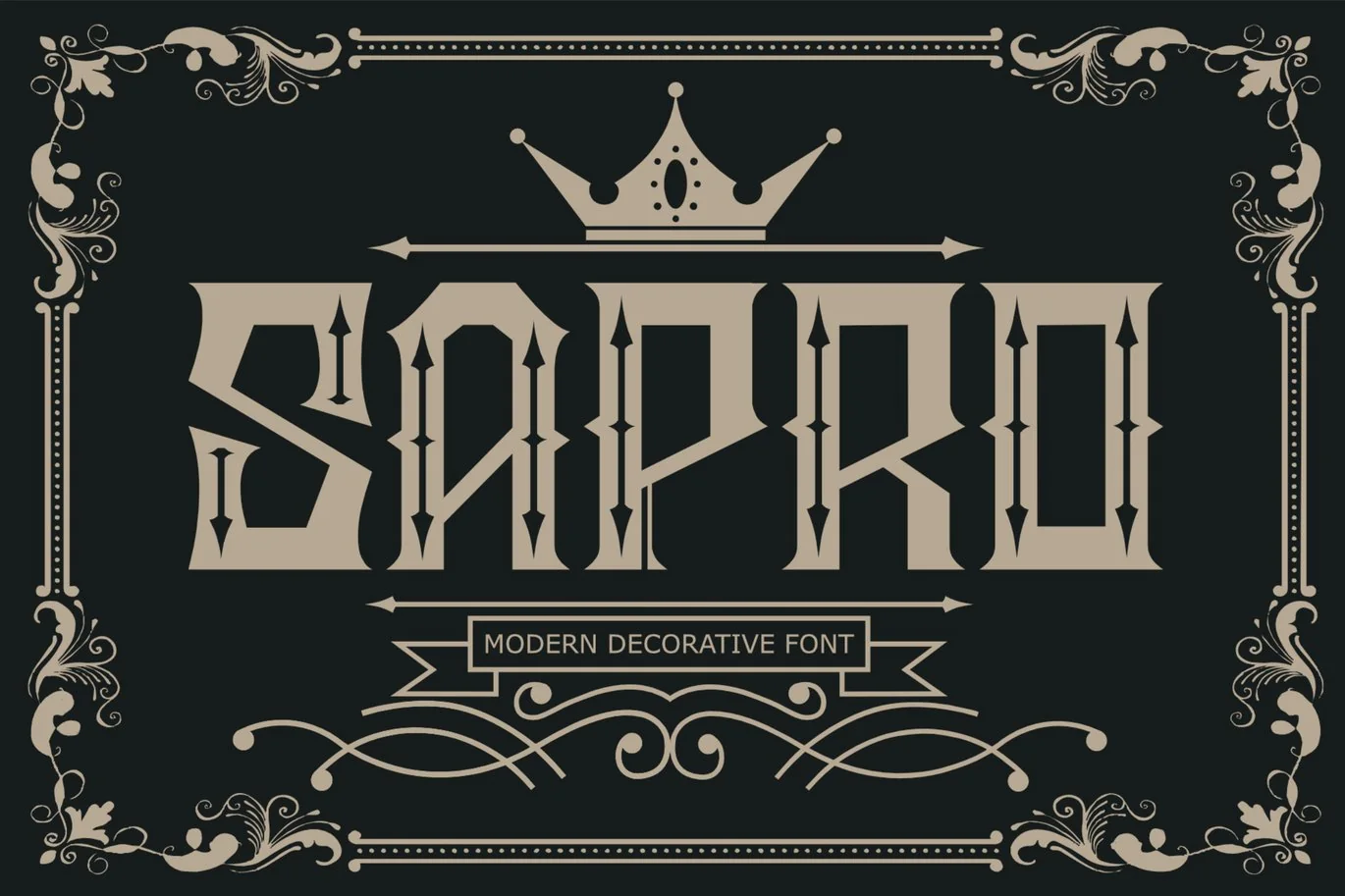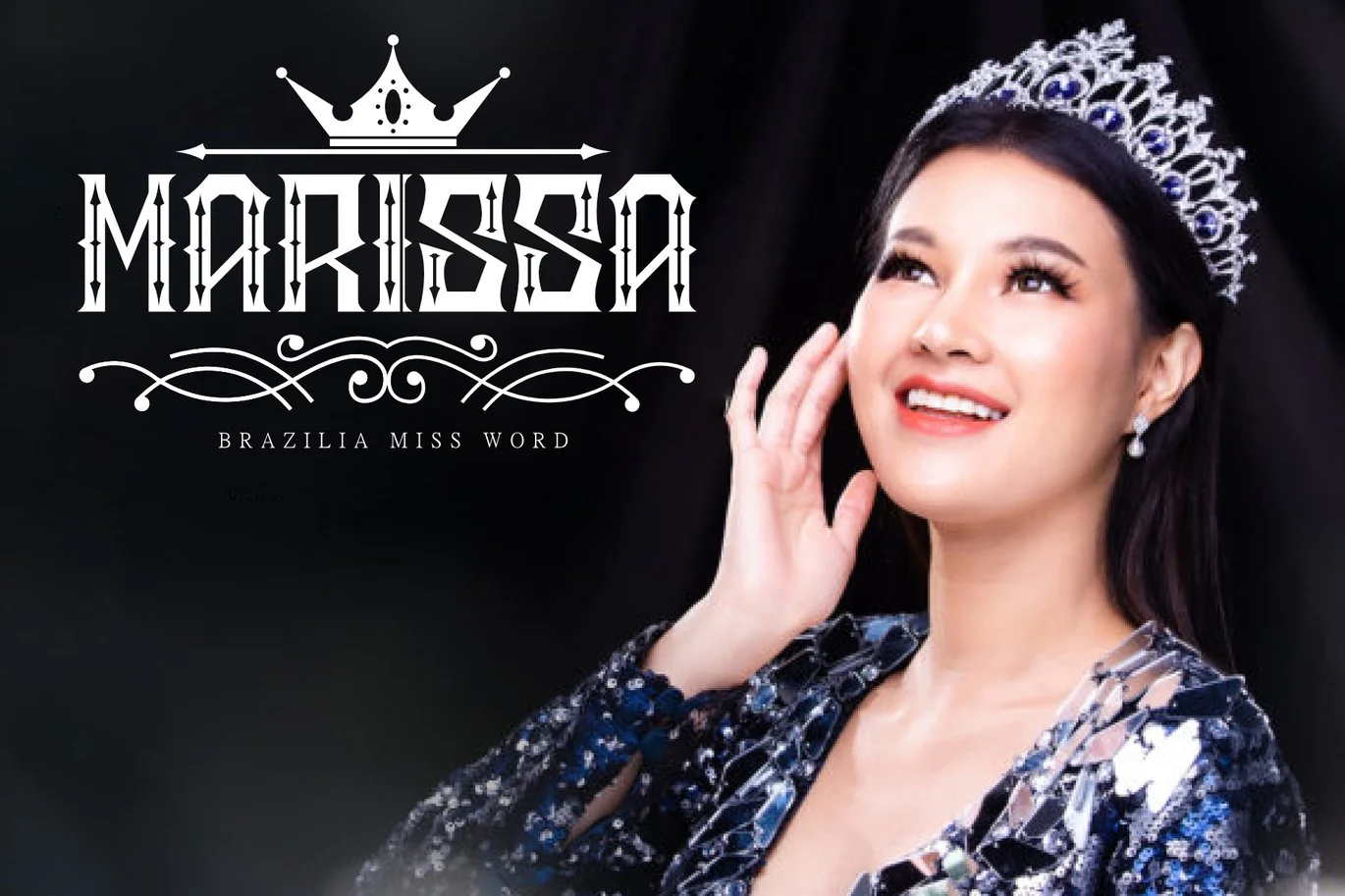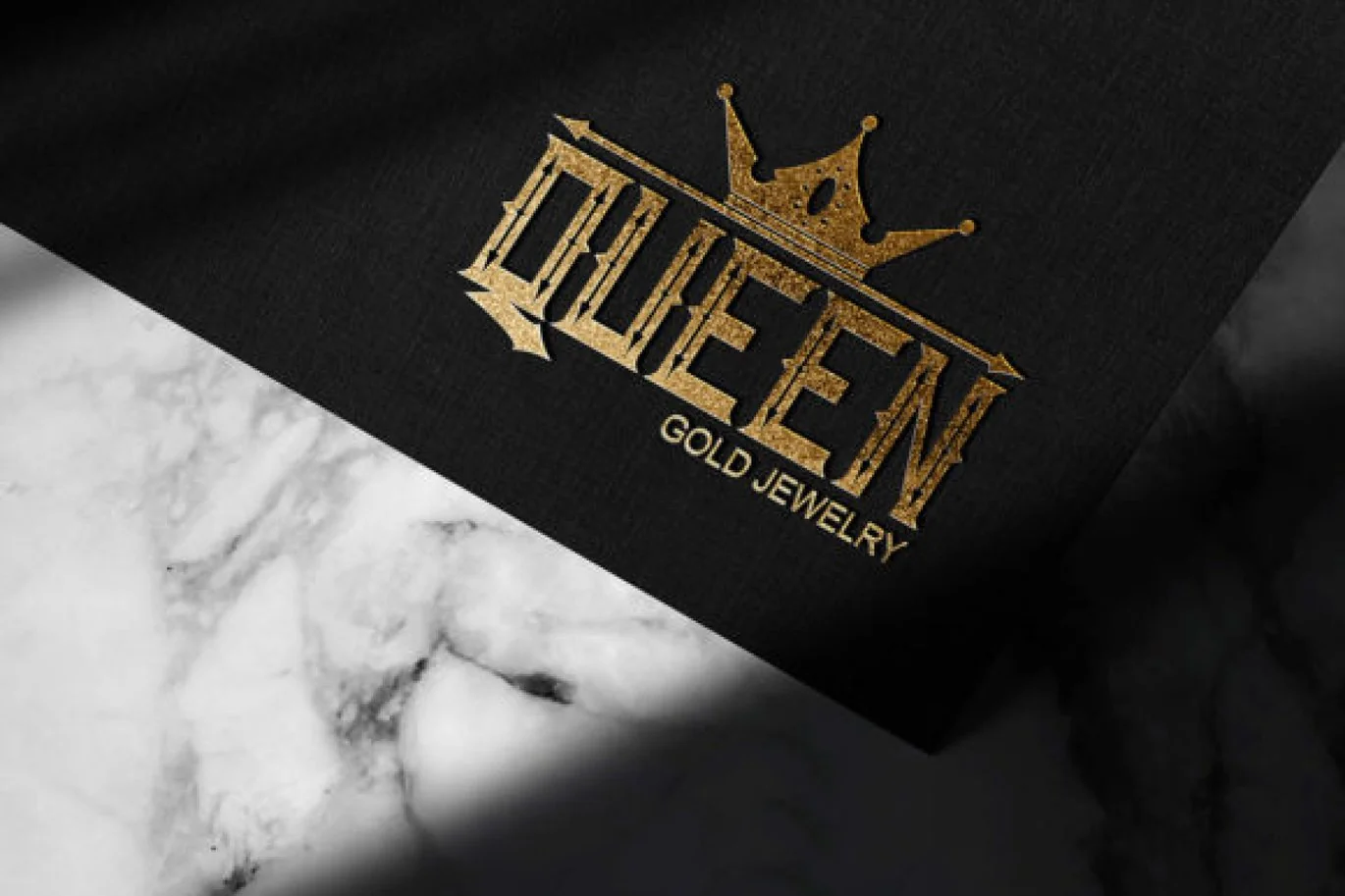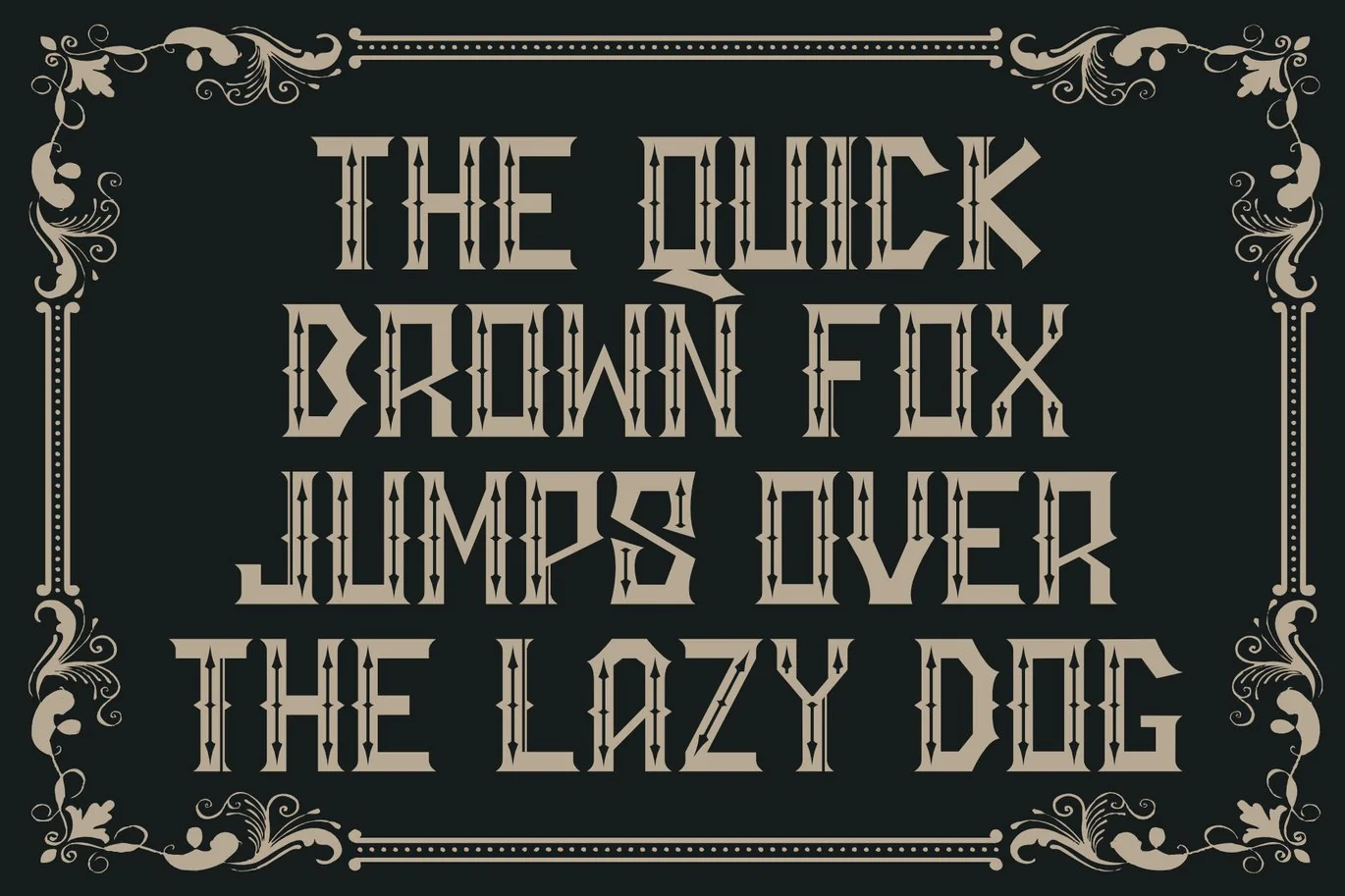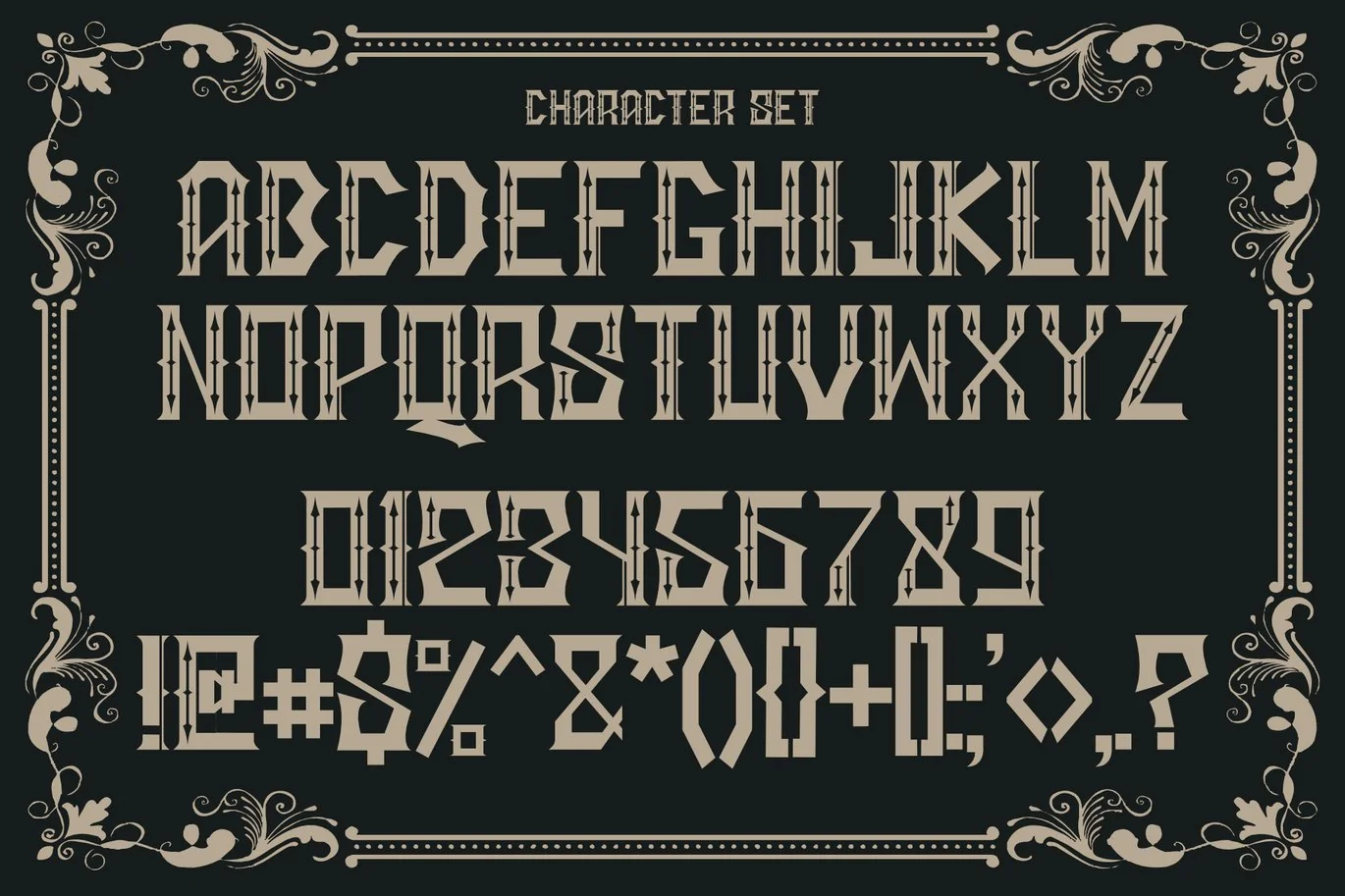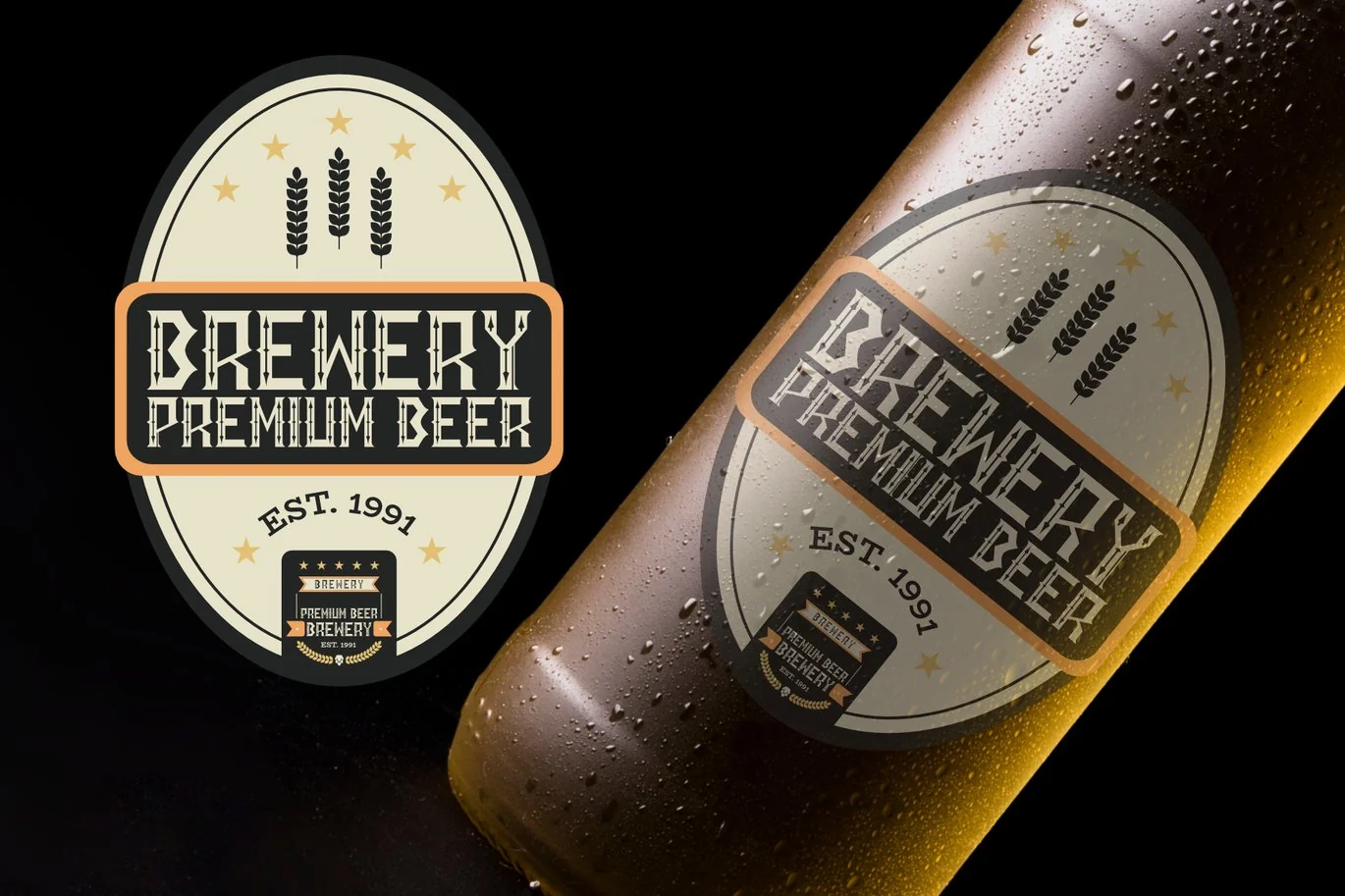
Sapro | Modern Decorative Font
Sapro: Modern Decorative Font
Sapro is a modern decorative font designed to add an artistic and futuristic touch to any design. With sharp lines and innovative shapes, Sapro creates a striking and stylish look, perfect for various creative projects.
Key Features:
Complete Character Set: Sapro includes a full set of uppercase letters (A-Z), numbers (0-9), and a variety of punctuation marks.
Unique and Modern Design: Each letter in Sapro is meticulously crafted to deliver a fresh and contemporary impression. Ideal
for branding, posters, and social media graphics that aim to stand out. -
Distinctive Characteristics: The combination of decorative elements and a modern style makes Sapro stand out. Its eccentric
and aesthetic letterforms provide uniqueness to every word written with this font. -
Multi-language Support: This font supports various international characters, allowing you to reach a global audience without
language limitations.